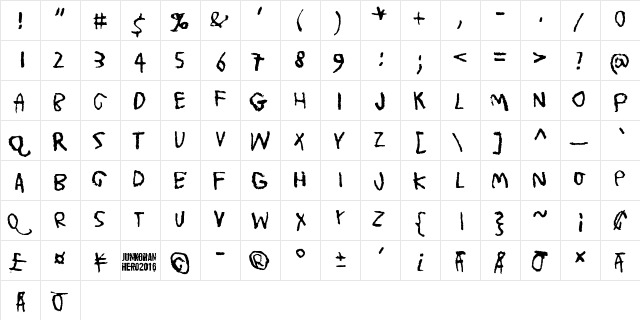
Trash! More trash! Regular
Design Context for Trash! More trash! Typeface
Trash! More trash! is a composed and adaptable typeface that performs quietly and consistently across a wide range of design contexts.